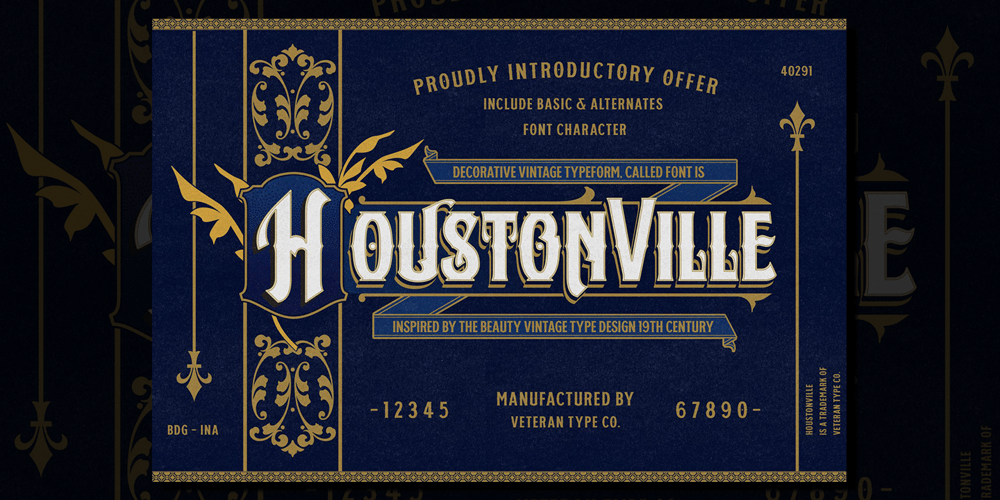
Houstonville Font Family was designed by Abdul Rochman and published by Veteran Type. Houstonville contains 1 styles and family package options. Houstonville is the debut letterfrom of Veteran Type. Design by Abdul Rochman a.k.a Veteran Type. This font is inspired by ancient letters in the 19th century. This font is very suitable for designs with ancient concepts, such as print, logo design, and others.This consists of : 20 stylistic set 520 ± glyph count Multilingual support Support for multiple languages Math Symbol Numerals & Punctuation I am very grateful, to my friend and mentor, namely Spencerandsons a.k.a Gilang Purnama, for sharing their knowledge, time, and teaching me. Thank you again Spencer and Sons, always be great !!!